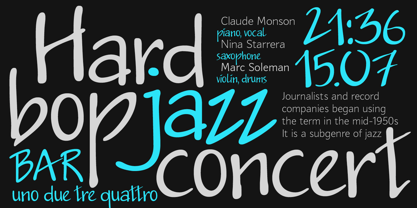
Jakob
Designed at ParaType in 1994 by Alexander Tarbeev. Based on informal handwriting. For use in advertising and display typography.
Designers: Alexander Tarbeev